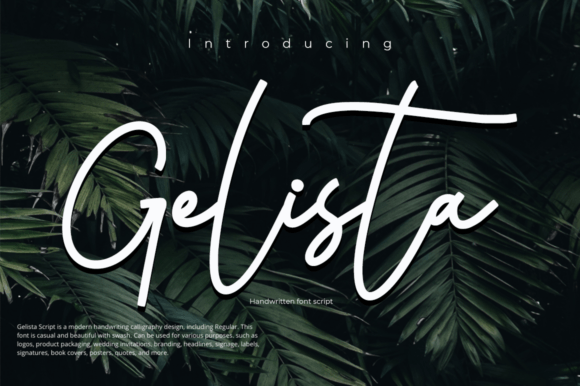
Gelista Font: Elevate Your Designs with Elegance and Personality
In the world of typography, fonts play a crucial role in conveying the tone and aesthetic of a design. Among the numerous fonts available, Gelista stands out as a modern and charming handwritten font that exudes elegance and personality. Its unique blend of sophistication and warmth makes it an ideal choice for upscale invitations, personal branding, and chic editorial designs.
The Characteristics of Gelista Font
Gelista font is characterized by its graceful, flowing strokes that give it a refined and luxurious feel. The font’s sophisticated character is perfect for designs that require a touch of elegance and poise. The flowing strokes also add a sense of movement and fluidity to the text, making it visually appealing and engaging.
Key Features of Gelista Font
- Modern and Charming: Gelista font boasts a modern and charming aesthetic that is sure to captivate your audience.
- Elegant and Sophisticated: The font’s elegant and sophisticated character makes it perfect for upscale designs.
- Handwritten: Gelista is a handwritten font that adds a personal touch to your designs.
- Flowing Strokes: The font’s flowing strokes give it a refined and luxurious feel.
Uses of Gelista Font
Gelista font is versatile and can be used in various design projects. Some of the most popular uses of Gelista font include:
Upscale Invitations
Gelista font is perfect for creating upscale invitations for weddings, galas, and other high-end events. Its elegant and sophisticated character sets the tone for a luxurious and memorable experience.
Personal Branding
Gelista font is also ideal for personal branding, as it adds a touch of elegance and sophistication to a brand’s visual identity. The font’s unique character can help a brand stand out and establish a strong presence in the market.
Chic Editorial Designs
Gelista font is well-suited for chic editorial designs, such as fashion magazines, luxury lifestyle publications, and high-end advertising campaigns. Its refined and luxurious feel adds a touch of sophistication to any editorial design.
Benefits of Using Gelista Font
Using Gelista font in your designs offers several benefits, including:
Elegance and Sophistication
Gelista font adds a touch of elegance and sophistication to any design, making it perfect for high-end projects.
Uniqueness and Originality
Gelista font is a unique and original font that can help your designs stand out from the crowd.
Versatility
Gelista font is versatile and can be used in various design projects, from invitations to editorial designs.
Emotional Connection
Gelista font’s elegant and sophisticated character can help create an emotional connection with your audience, making your designs more engaging and memorable.
Tips for Using Gelista Font Effectively
To get the most out of Gelista font, here are some tips to keep in mind:
Use it Sparingly
Use Gelista font sparingly to create a sense of luxury and exclusivity. Overusing the font can dilute its impact and make it less special.
Pair it with Neutral Colors
Pair Gelista font with neutral colors, such as black, white, and gray, to create a sophisticated and elegant look.
Experiment with Font Sizes
Experiment with different font sizes to create visual hierarchy and add emphasis to important text elements.
Pay Attention to Kerning and Tracking
Pay attention to kerning and tracking to ensure that the text is evenly spaced and visually appealing.
Gelista font is a modern and charming handwritten font that exudes elegance and personality. Its unique blend of sophistication and warmth makes it an ideal choice for upscale invitations, personal branding, and chic editorial designs. By understanding the characteristics, uses, and benefits of Gelista font, you can elevate your designs and create a lasting impression on your audience.